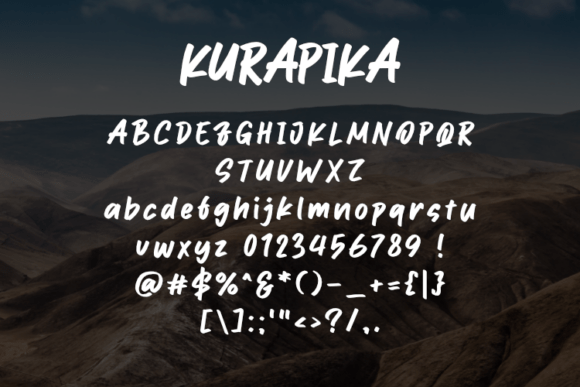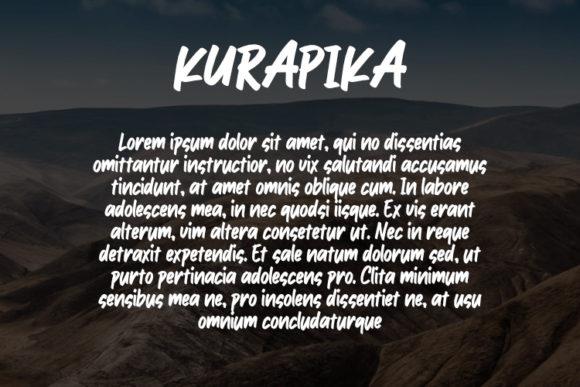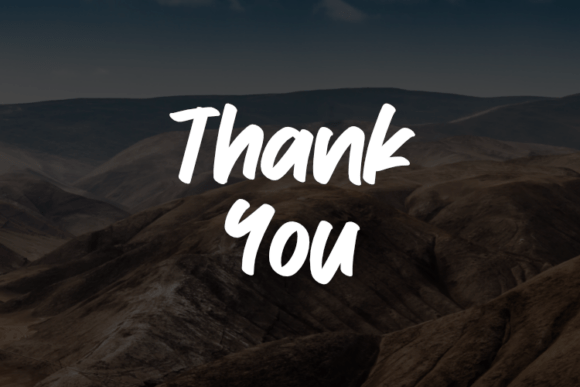
That’s why we’re excited to introduce you to the Kurapika Font, a high-quality typeface that’s set to revolutionize your apparel and product design endeavors. With its universal compatibility and sleek, sophisticated aesthetic, this font is the perfect match for any design project.
Introduction to Kurapika Font
With the Kurapika Font, you can take your designs to the next level. Whether you’re working on a free download or a paid project, this versatile font ensures that your message is conveyed with style and clarity. Plus, with its transparent background, you can easily layer your designs without any distractions.
Key Features of Kurapika Font
- High-quality design resource suitable for creative projects, offering a unique aesthetic.
- Features a transparent background, making it ideal for projects requiring a clean and minimalist look.
- Designed with a high level of detail, resulting in a crisp and clear appearance at resolutions up to 300 DPI.
Honest Review: Kurapika Font
Here are some things that I think work well with the Kurapika Font: ✨ It’s a beautiful, elegant font that’s perfect for titles and headings. The transparent background makes it easy to use on top of images or other design elements. The font is also highly customizable, making it easy to adjust to fit your design needs.
However, there are a few limitations to keep in mind: ⚠️ The font may not be suitable for body text, as it’s quite ornate and may be difficult to read. Additionally, the font may not be compatible with all operating systems or software.
- Unique, elegant design
- Highly customizable
- Perfect for titles and headings
- May not be suitable for body text
- May not be compatible with all operating systems or software
Kurapika Font
The Kurapika Font is a versatile and high-quality design resource that can elevate your creative projects. With its transparent background, this font is perfect for use in various design applications.
Tips for Getting the Most Out of Kurapika Font
Here are a few tips to help you get the most out of the Kurapika Font:
- Experiment with different font sizes and styles to achieve the desired effect.
- Combine the Kurapika Font with other design elements to create a unique and visually appealing design.
- Use the transparent background to create a seamless design that integrates with other elements.
The Kurapika Font can be used in a variety of creative projects, including:
- Business cards
- Brochures
- Presentations
Pacifico is a beautiful, high-quality script font that is perfect for creative projects that require a touch of elegance and sophistication. It features a transparent background, making it ideal for designs that require a clean and minimalist look. When to use: Wedding invitations, luxury branding, and fine art designs.
Yes, the Kurapika Font features a transparent background, allowing for seamless integration with your design project’s background or other elements. This flexibility makes it easier to create visually appealing and professional-looking designs.